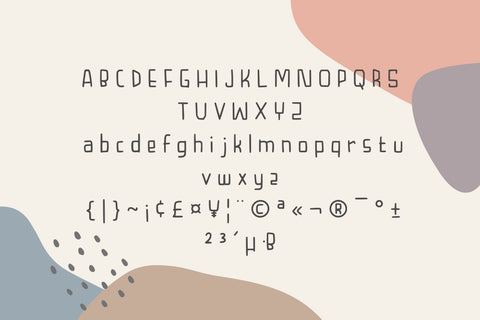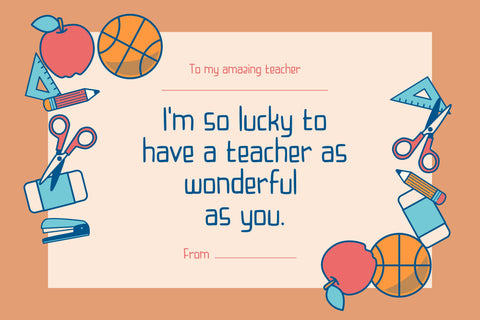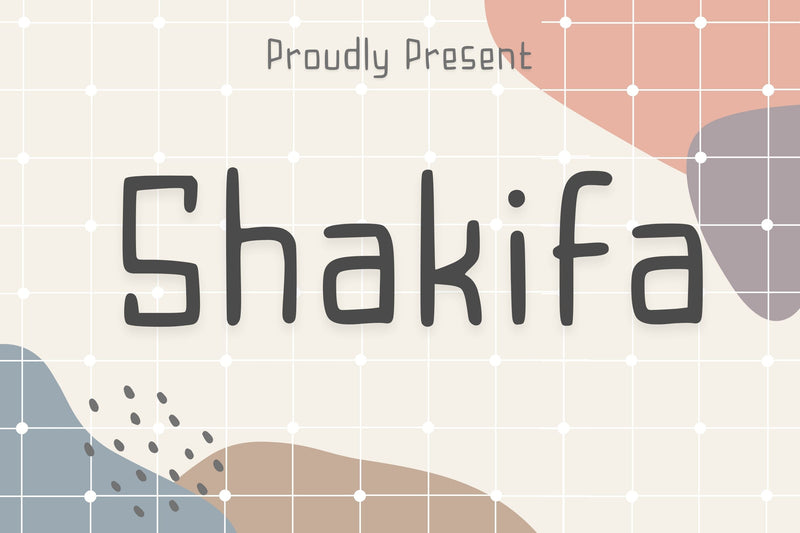
Shakifa Font
Shakifa is a playful and friendly display font. You can use it in various projects such as greeting cards, invitations, stickers, posts, decorations, and much more!